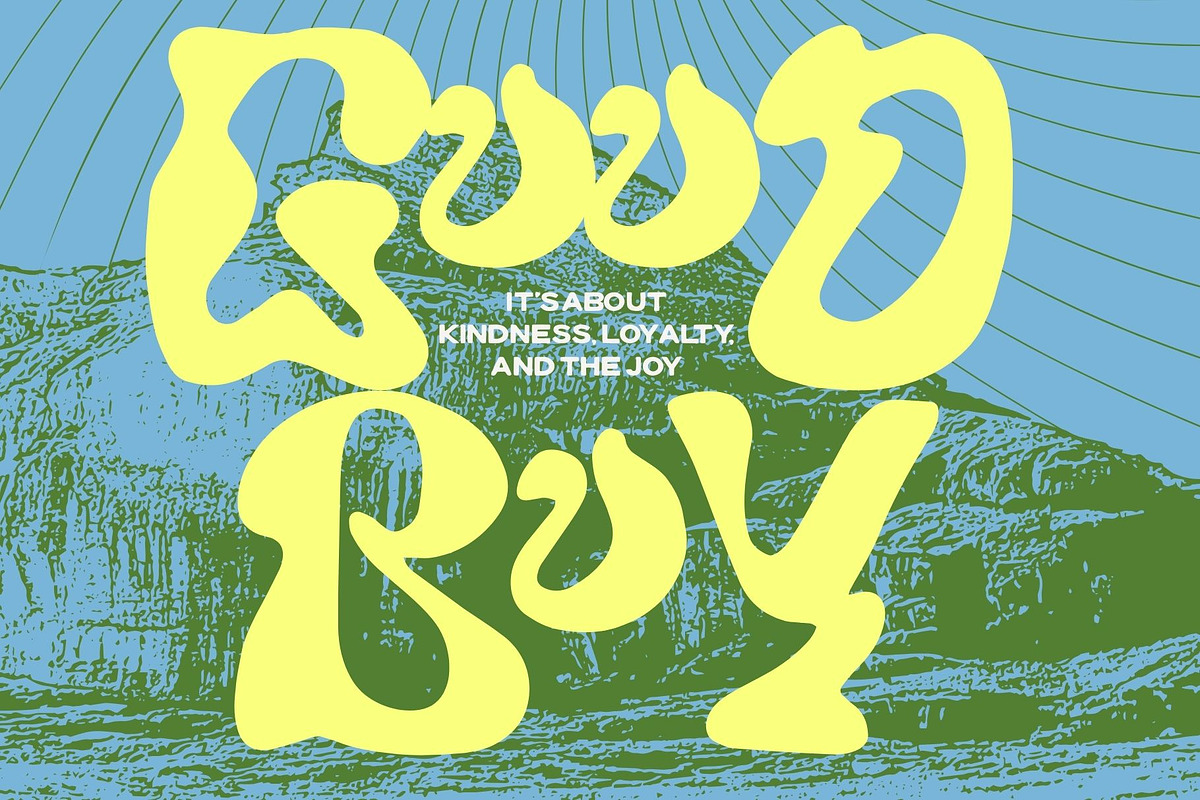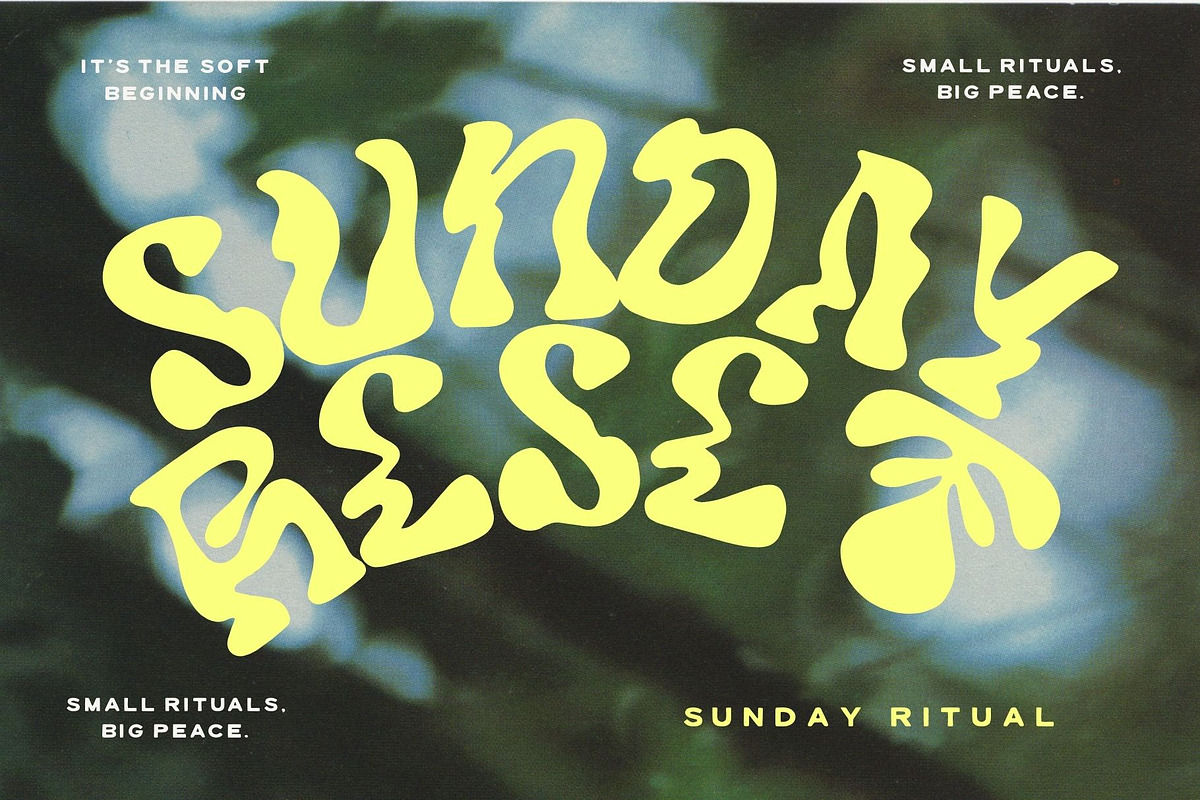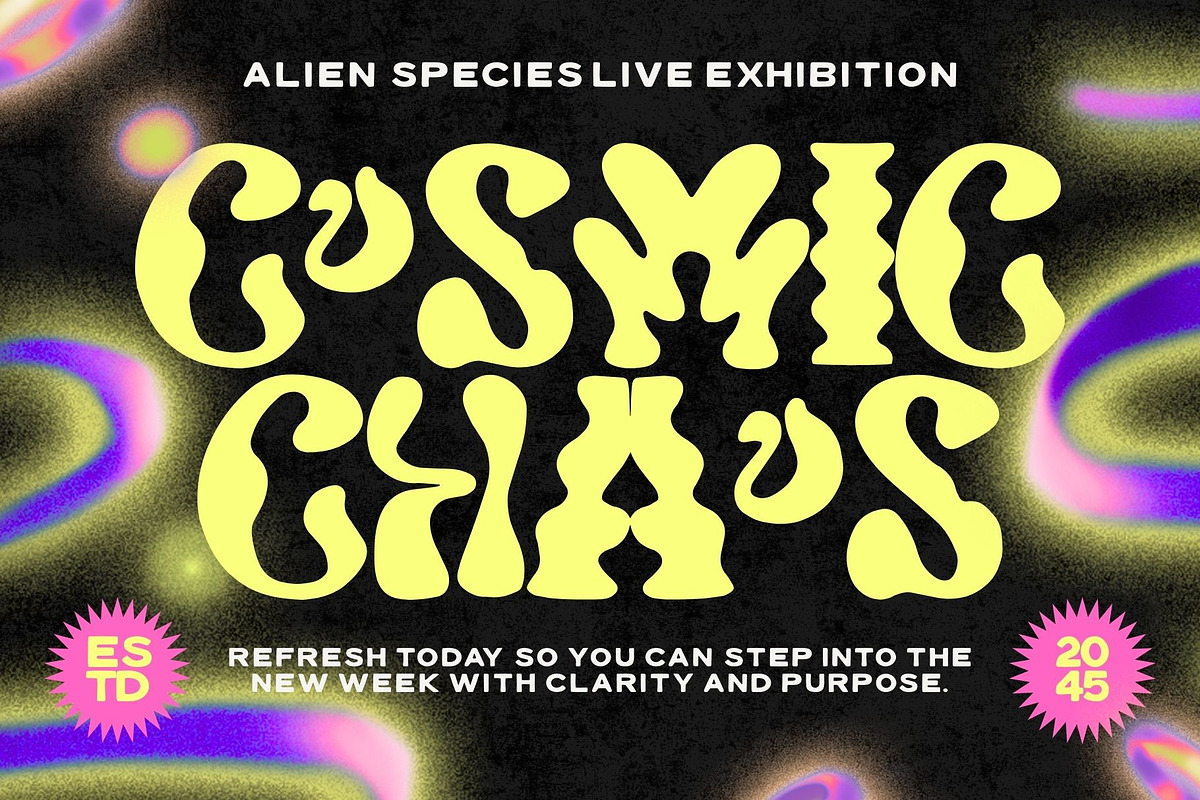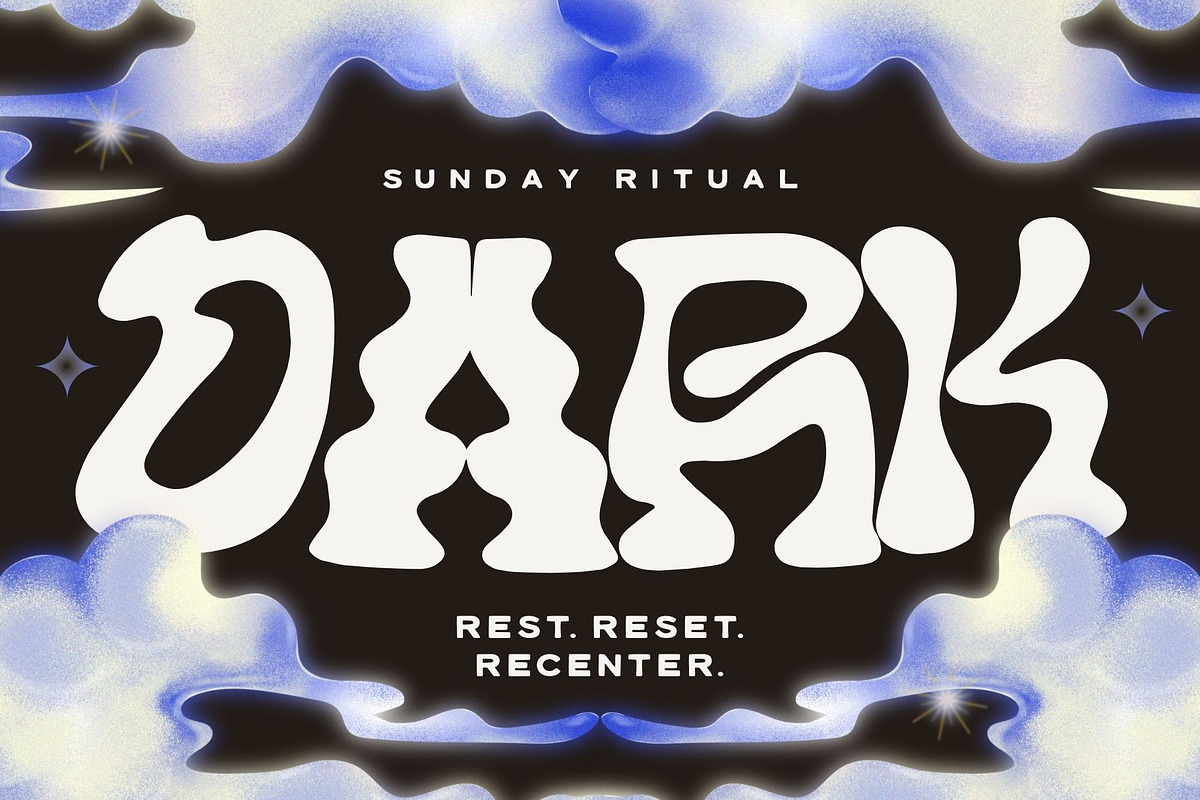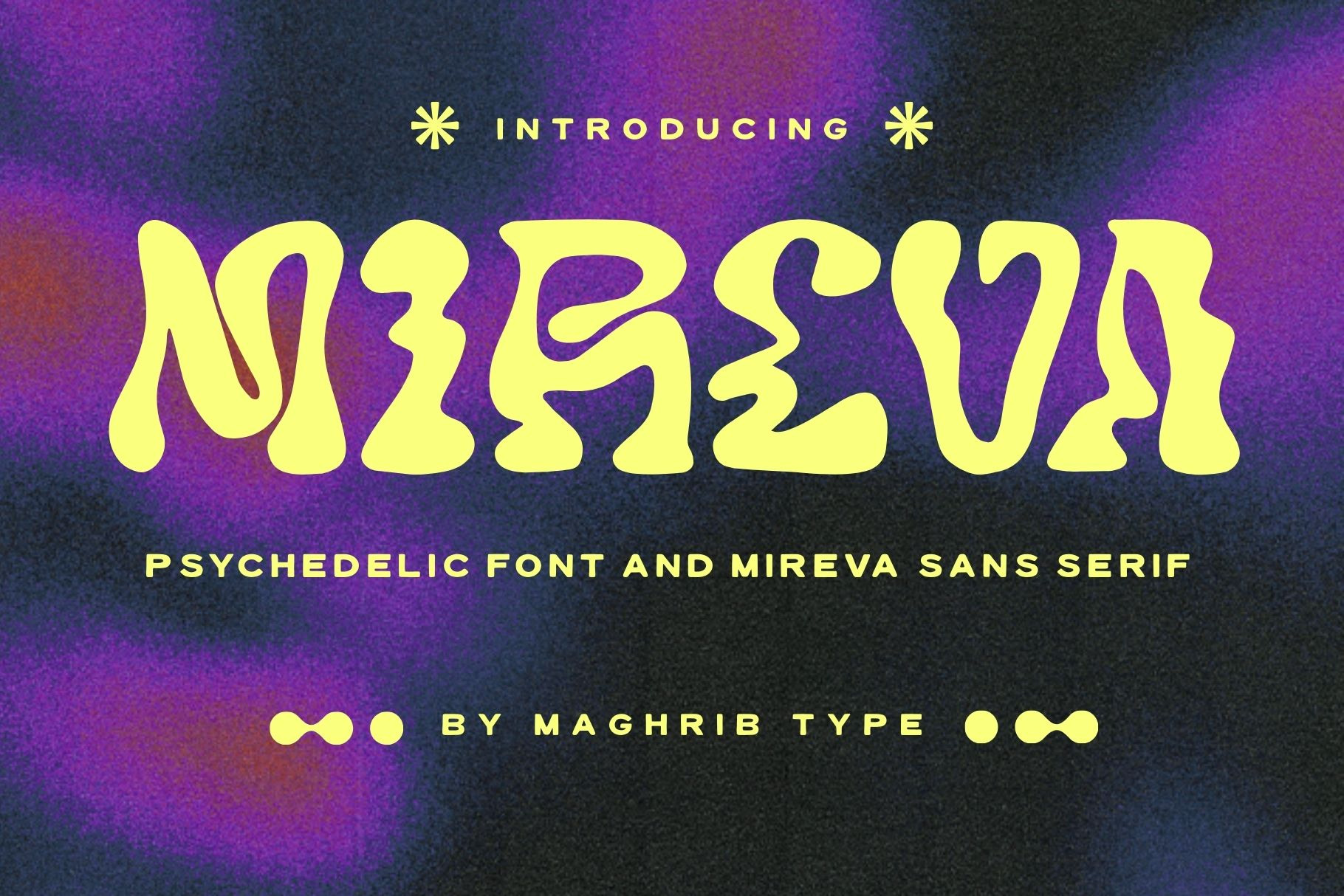
Mireva Dou Font
Meet Mireva, a psychedelic typeface that feels like it time-traveled straight from the 70s—then got upgraded with a bold, modern twist. The letters are fluid, organic, and wildly expressive, like shapes melting into each other but still totally readable and irresistibly aesthetic. Perfect for designs that need something weird in the coolest way possible—from music posters and indie branding to artsy editorials and scroll-stopping social media visuals.
What makes it even better? Mireva comes in two styles: ✨ Mireva (Psychedelic) — the main show: quirky curves, liquid movement, and statement-making shapes. Bold, experimental, unforgettable. ✨ Mireva Sans Serif — the clean and minimal companion font. Sleek, readable, and perfect for supporting text, captions, or layouts that need balance. Together, they’re the perfect contrast—wild chaos meets structure.
Mireva isn’t just a font—it’s a mood, a visual attitude, a design universe. If you love experimental typography, dreamy gradients, cosmic visuals, or bold retro energy, this typeface is your new obsession.
🌀 Perfect for: Gig posters, psychedelic themes, zines, experimental branding, lifestyle content, album covers, editorial layouts, and anything that needs surreal, dreamy aesthetics.